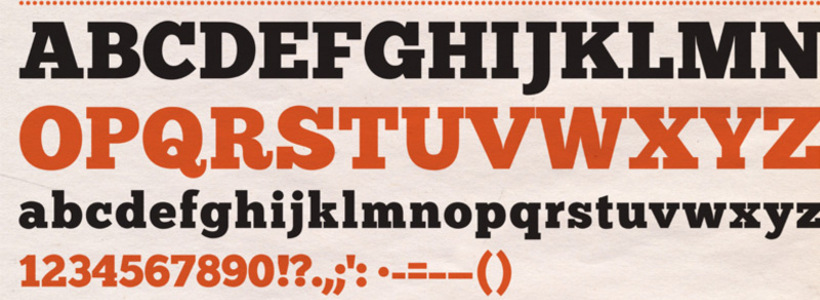
Chunk is an ultra-bold slab serif typeface that is reminiscent of old American Western woodcuts, broadsides, and newspaper headlines. Used mainly for display, the fat block lettering is unreserved yet refined for contemporary use.